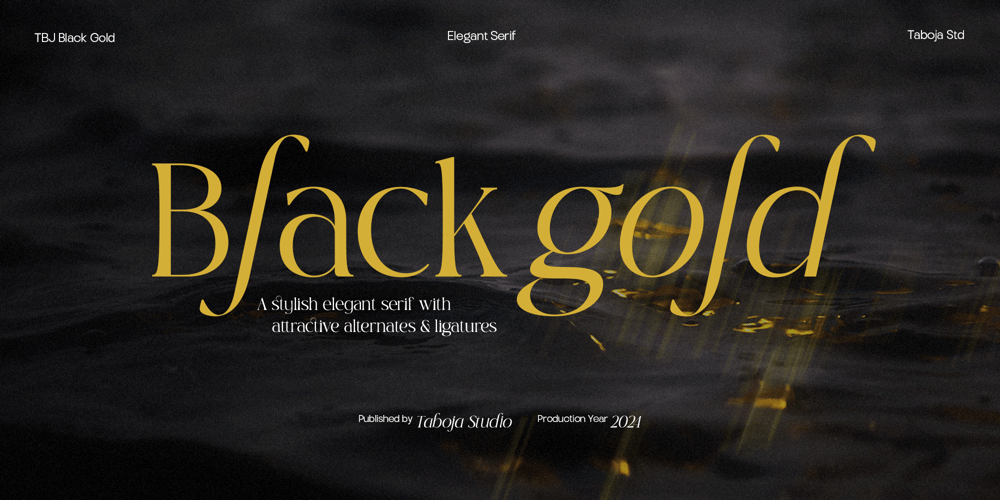
TBJ Black Gold Font Family was designed by Yusilo Oktaprima Ardani and published by Taboja Studio. TBJ Black Gold contains 2 styles and family package options. Elevate your design projects with TBJ Black Gold, a versatile serif font family that exudes elegance and sophistication. Perfectly crafted for modern typography needs, TBJ Black Gold is ideal for branding, editorial design, and more.Add a touch of timeless elegance to your designs with TBJ Black Gold 2-Styles Serif. Whether you’re working on a sophisticated magazine layout, an elegant wedding invitation, or a modern brand identity, TBJ Black Gold offers the perfect combination of style and functionality.TBJ Black Gold Includes:Regular & Italic±293 Glyphs±45 Various Alternates And LigaturesUppercase and LowercaseNumerals and PunctuationAccented charactersMultilingual SupportUnicode PUA EncodedWe highly recommend using a program that supports OpenType features and Glyphs panels such as Adobe Illustrator, Adobe Photoshop CC, Adobe Indesign, or CorelDraw, so you can see and access all Glyph variations.While using this product, if you encounter any problem or spot something we may have missed, please don’t hesitate to drop us a message. We’d love to hear your feedbacks in order to further fine-tune our products.Stay creative and have a wonderful day.